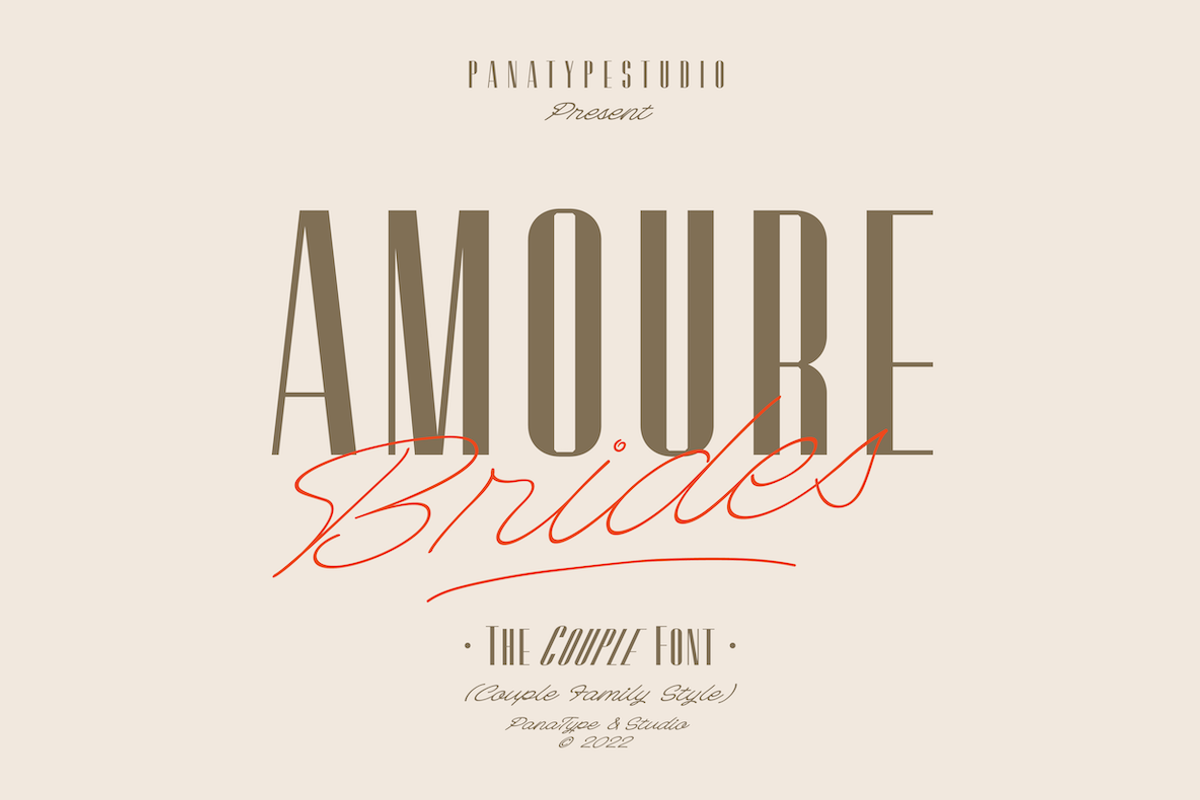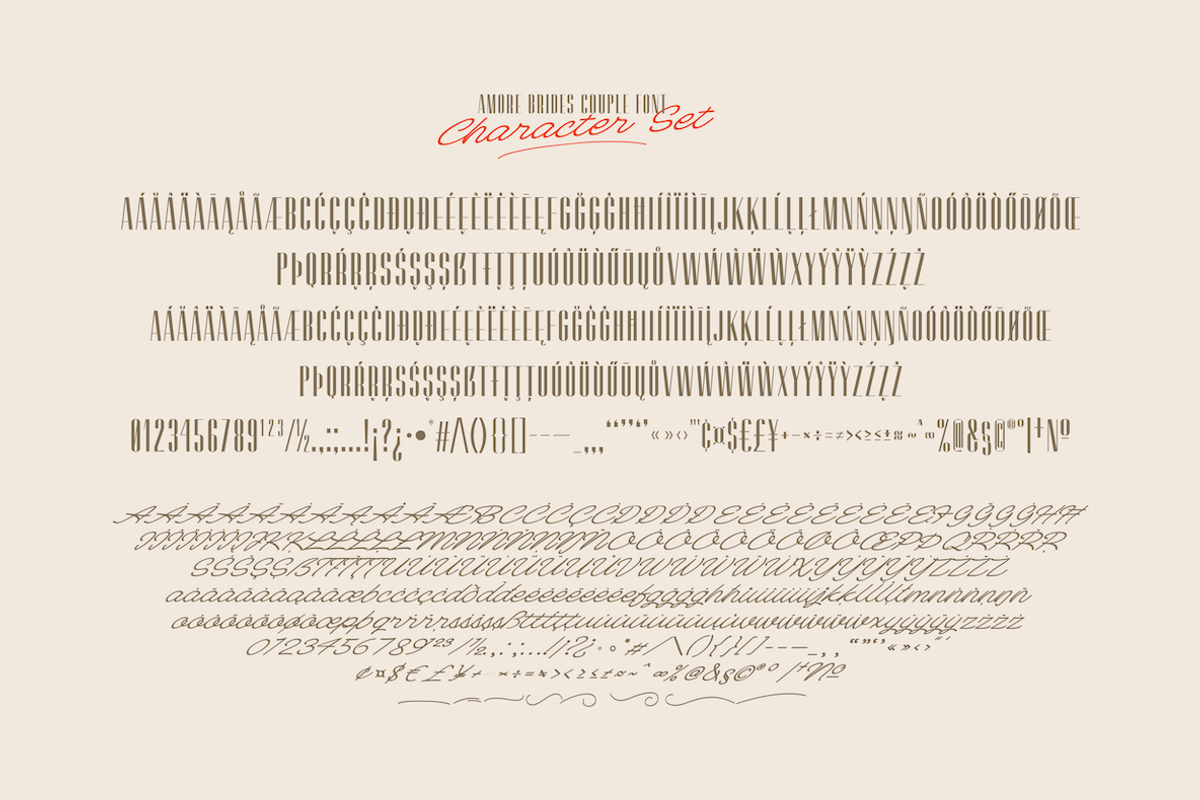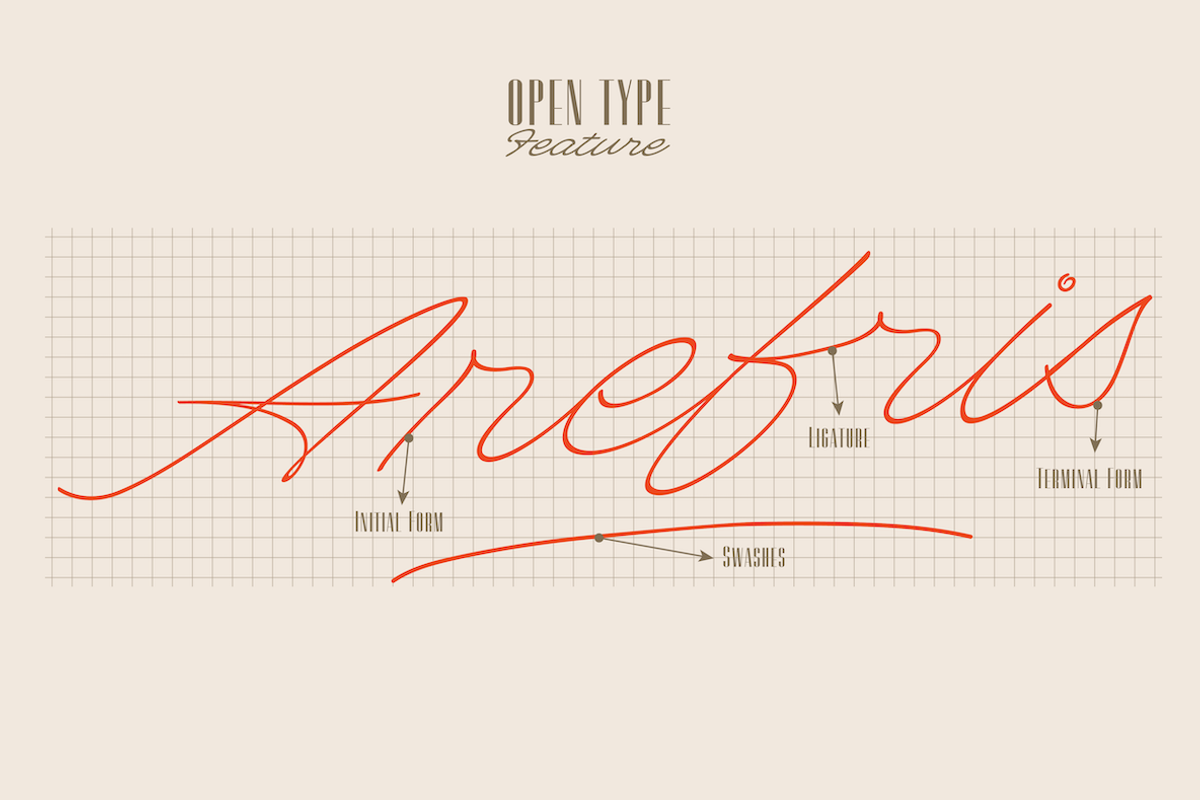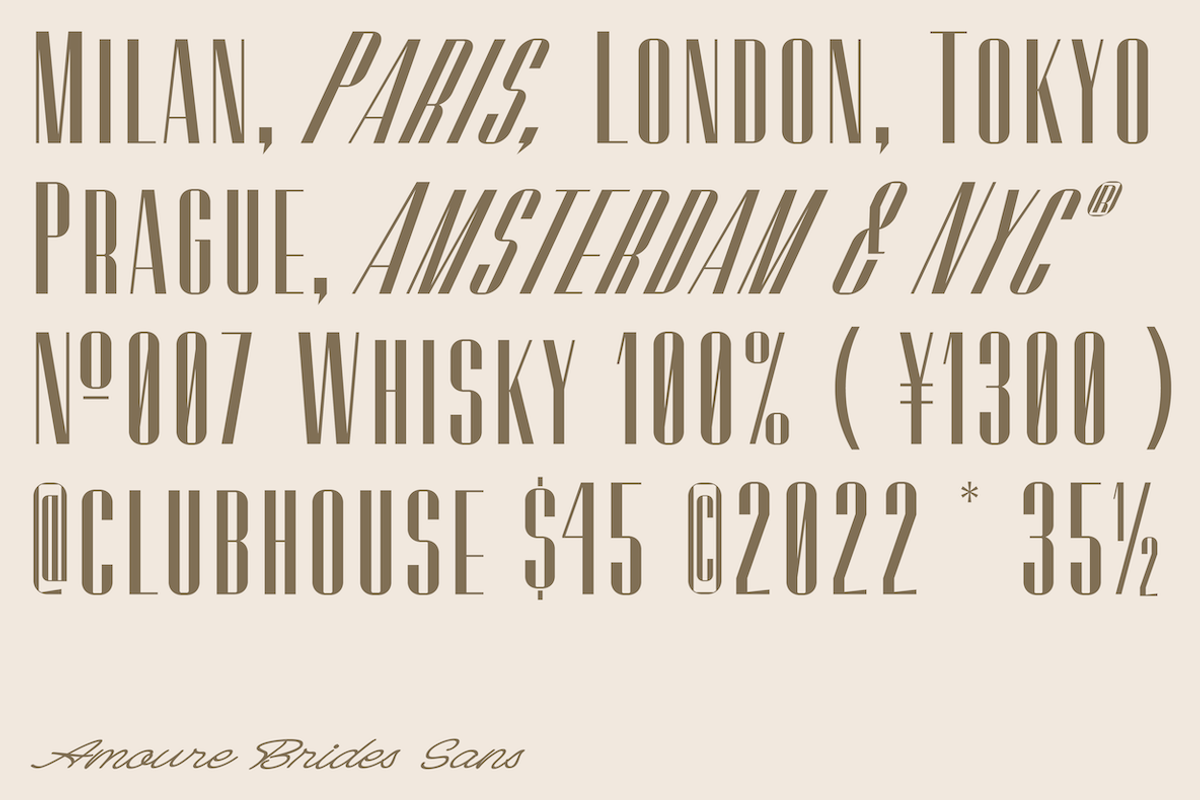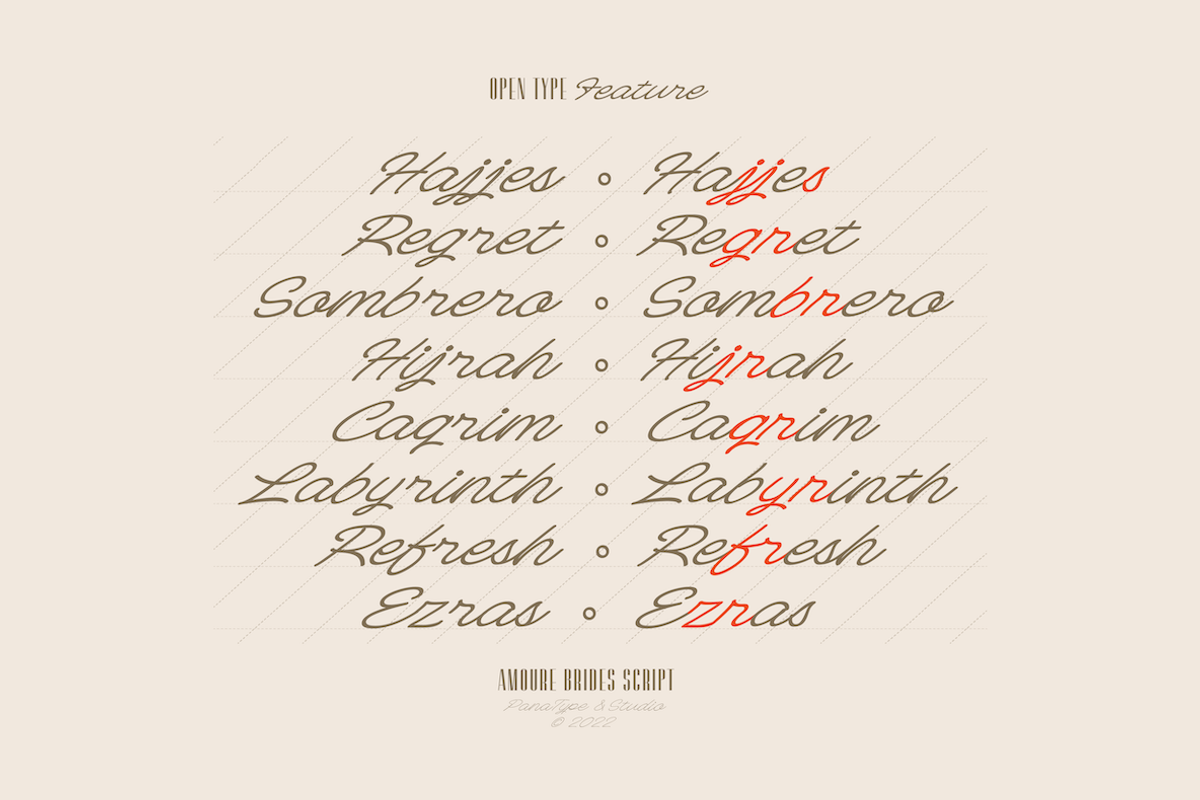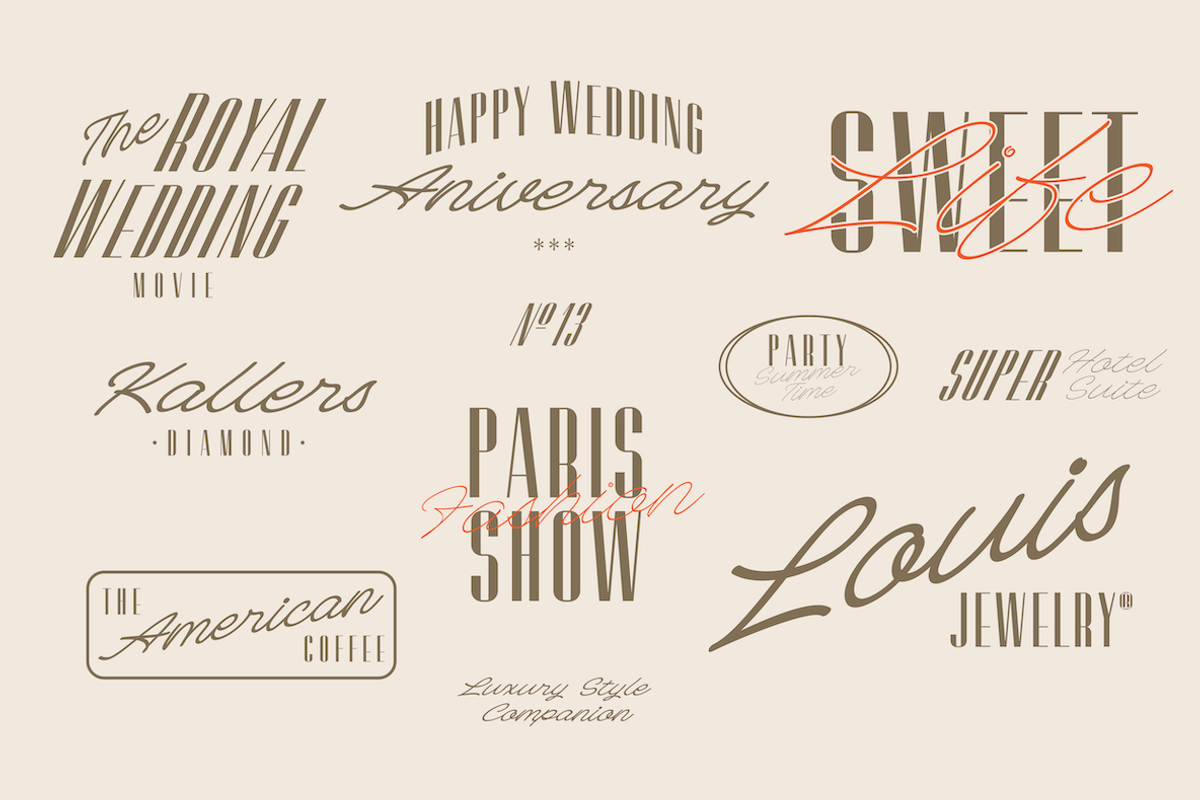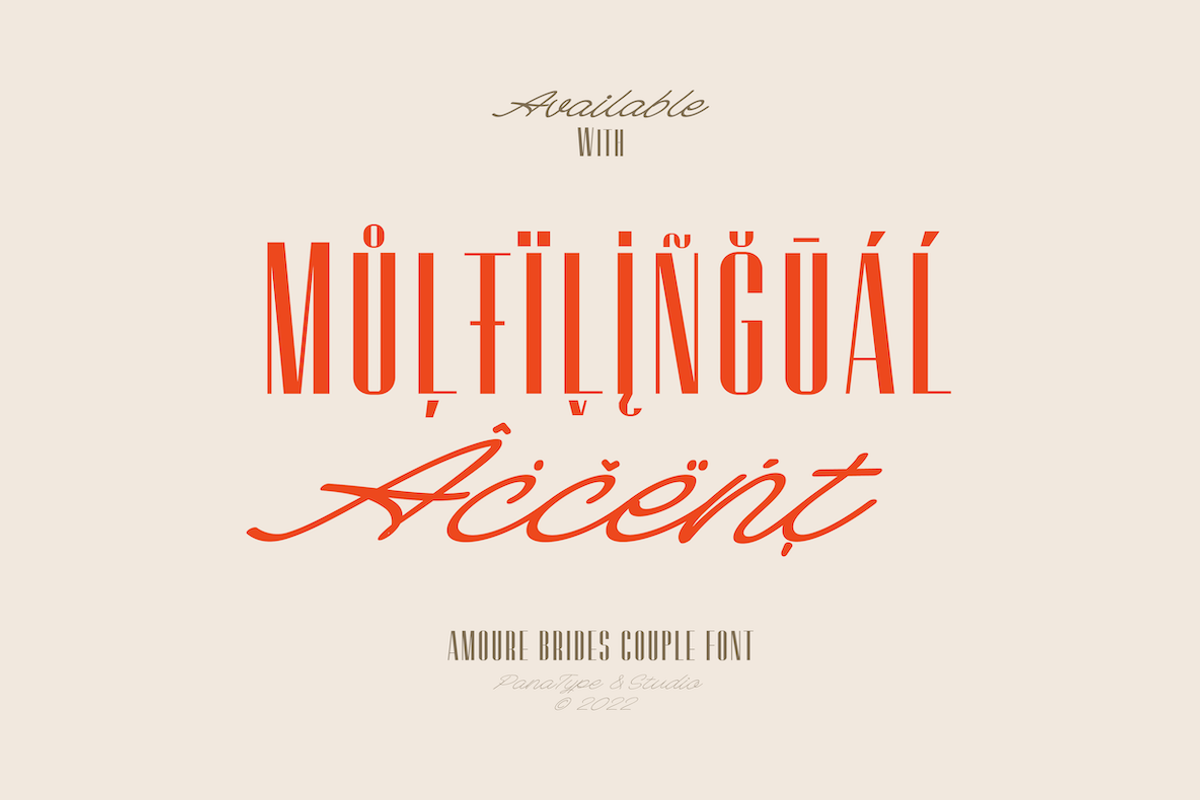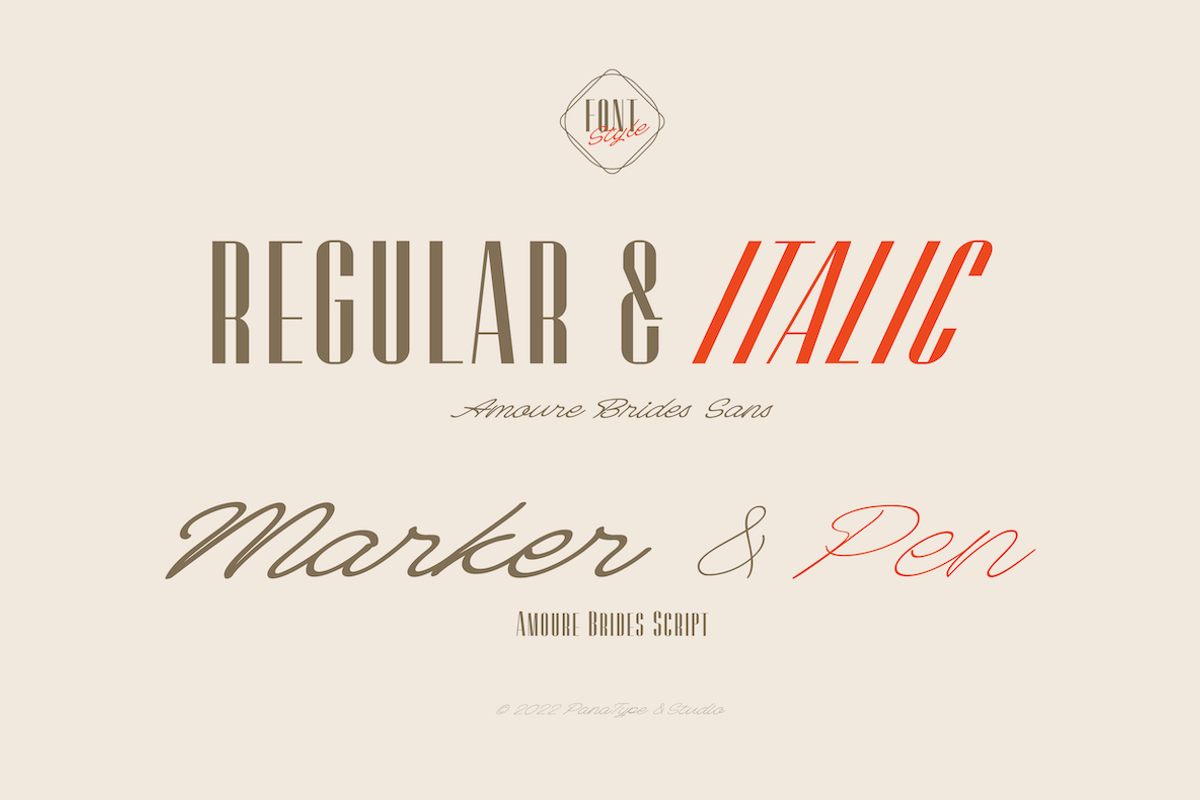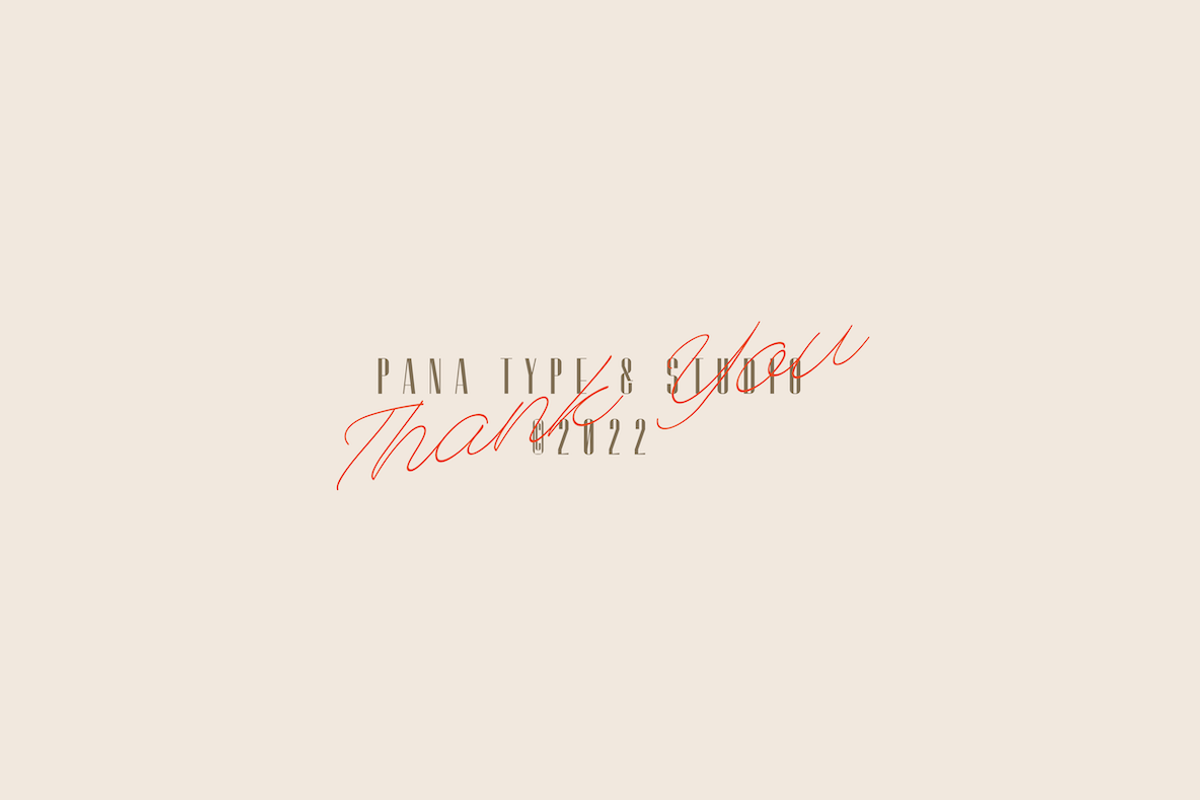
Amoure Brides Couple Font
Amoure Brides Couple Font is a pairing font between sans serif and handwritten script, These two couple lovely fonts would be perfect to combine in your design. This combination creates an elegant and romantic impression. Suitable for digital invitation, wedding design, fashion design, logo, business cards, branding materials, quotes, etc.
Opentype Features :
- Stylistic Set